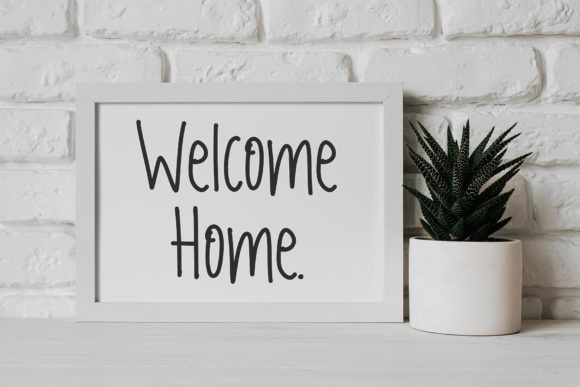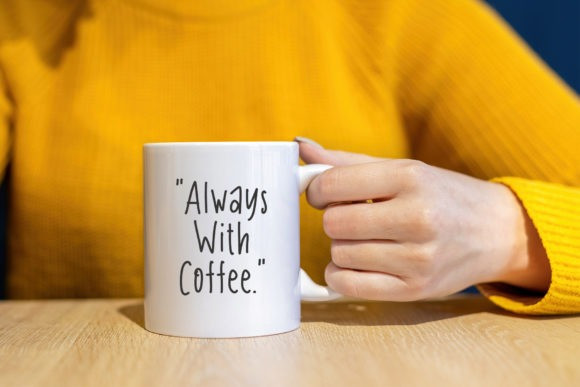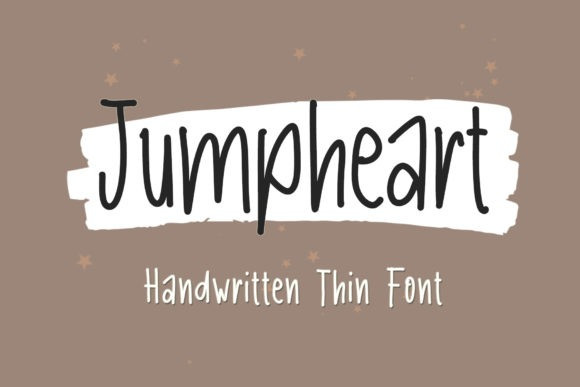
Jumpheart Handwritten Font
Jumpheart is a simple and thin-lettered handwritten font. This adaptable font will look great on a variety of design ideas. It will add a fun and friendly touch to each of your projects!